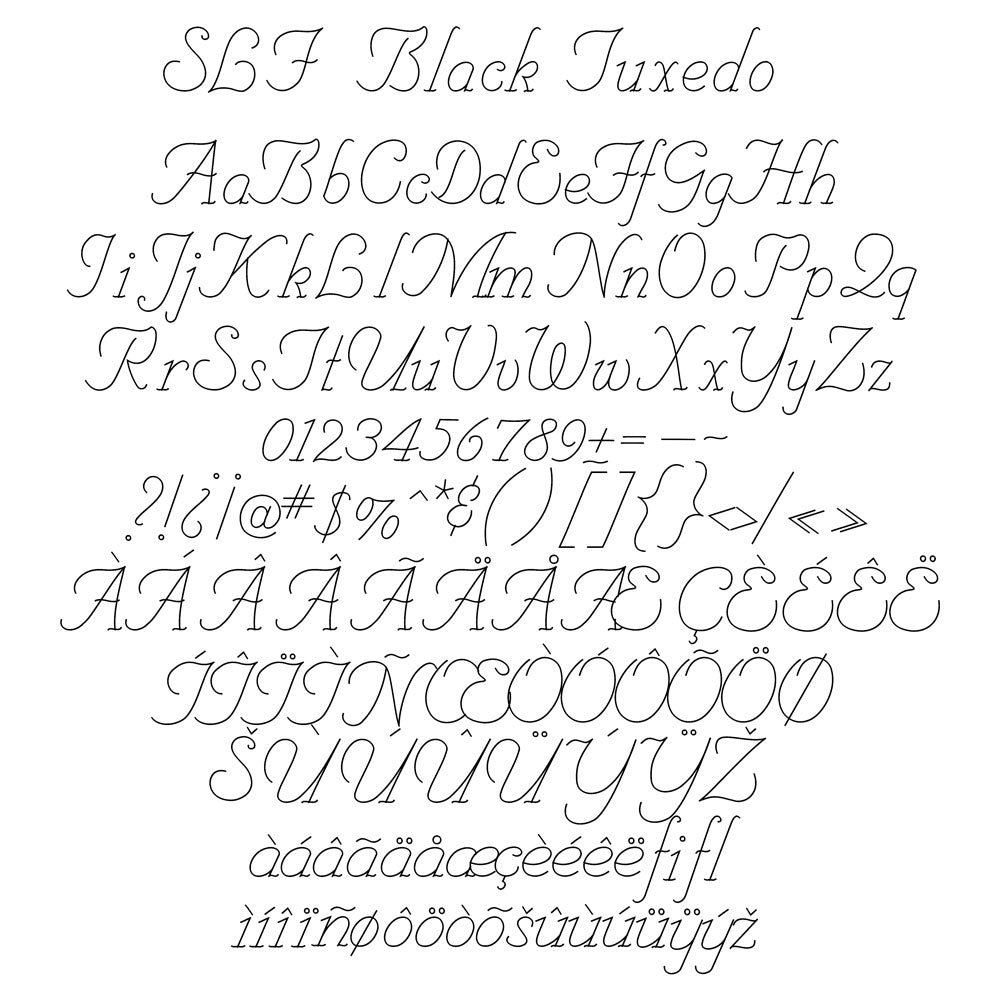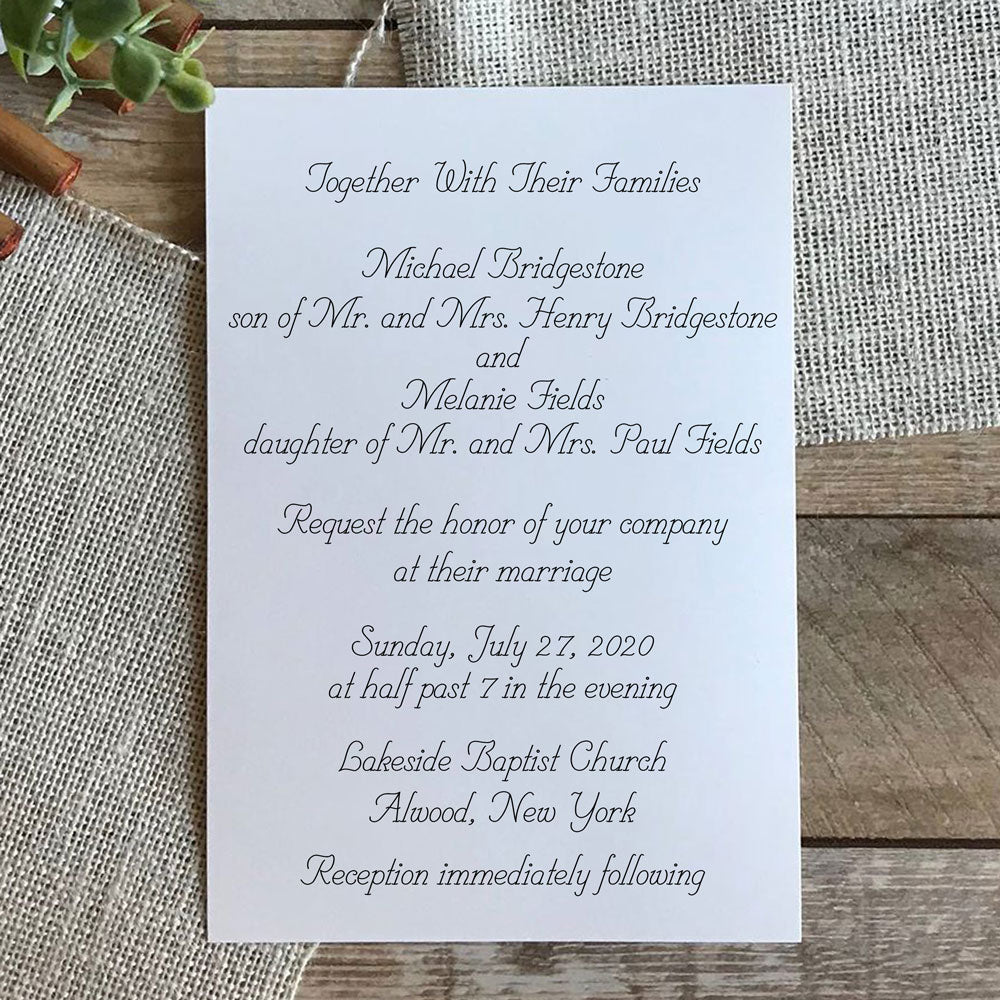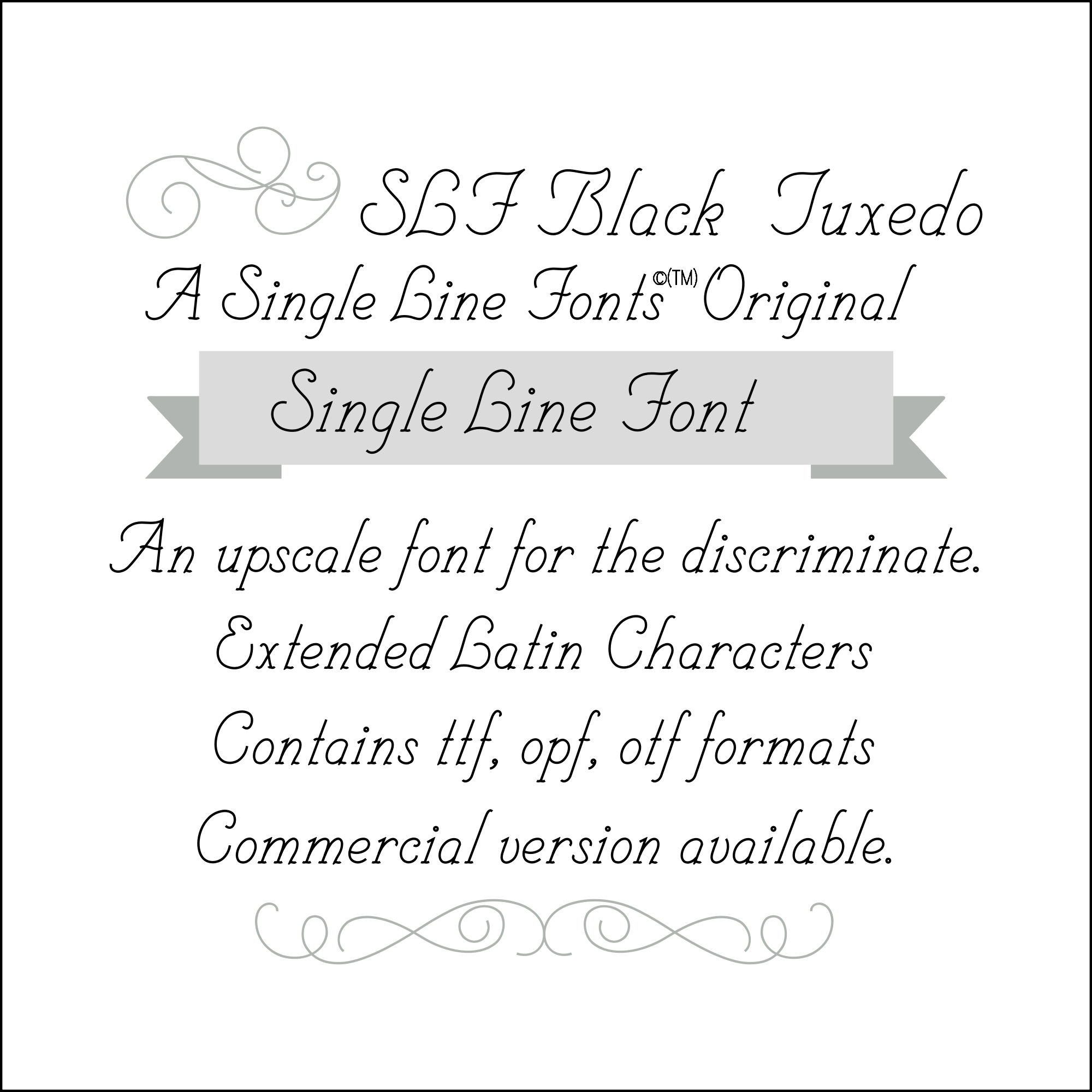
Single Line Font "SLF Black Tuxedo" With Bonus Version
SLF Black Tuxedo
SLF Black Tuxedo is a dressy font style for invitations, letters, greeting cards, engraving, foil quill, Glowforge, and more.  This font has an extended Latin character set for various languages (see 2nd photo).
BONUS - CONDENSED VERSION
Your download will include an alternate condensed version as a bonus!  Two fonts for the price on one.  This has tighter spacing for those times when you need to fit more text onto a page.